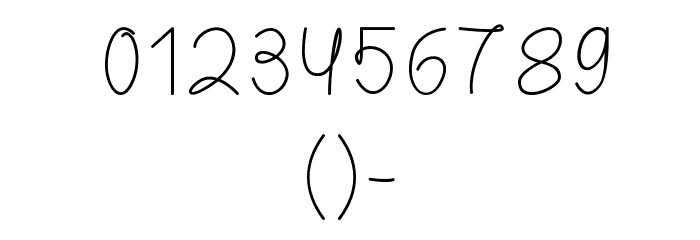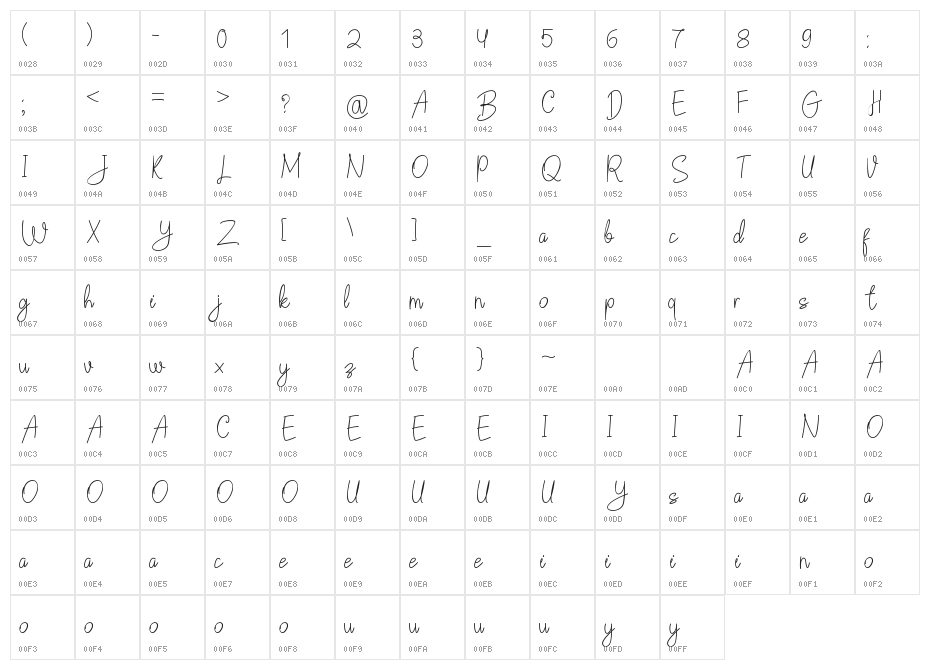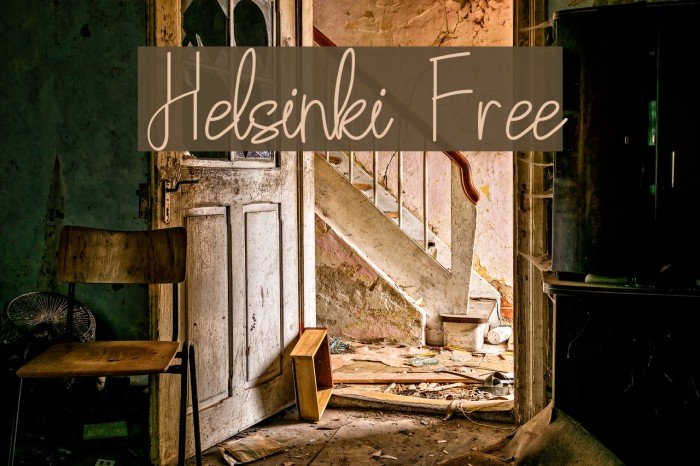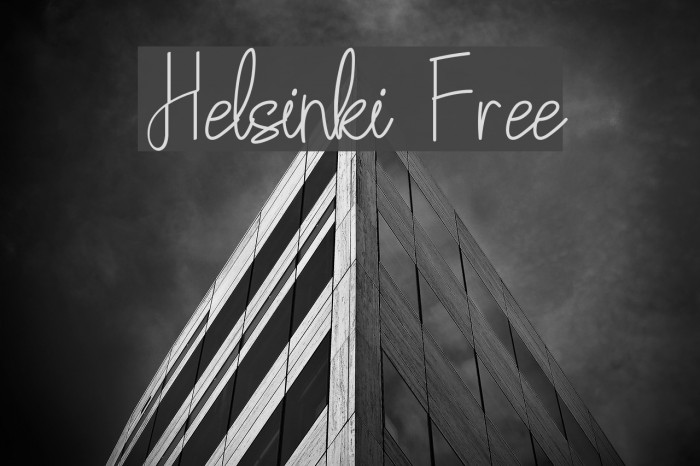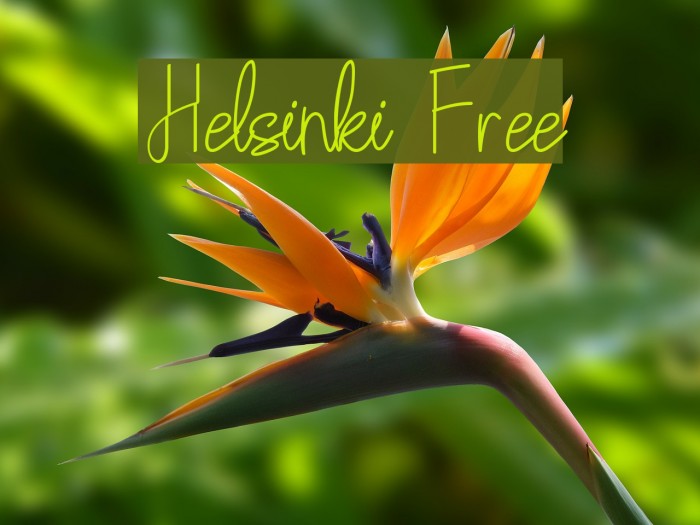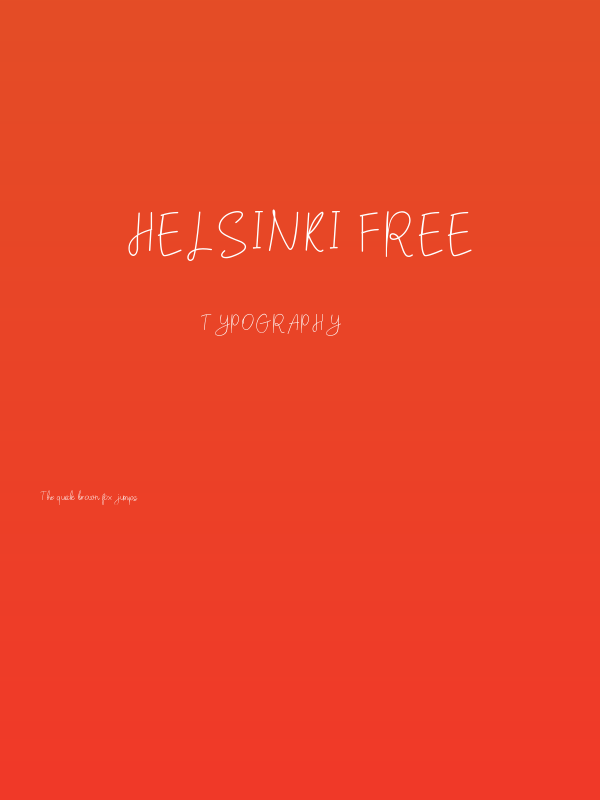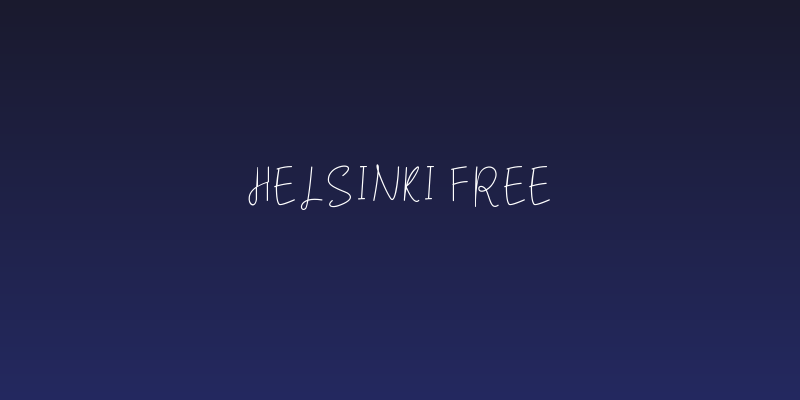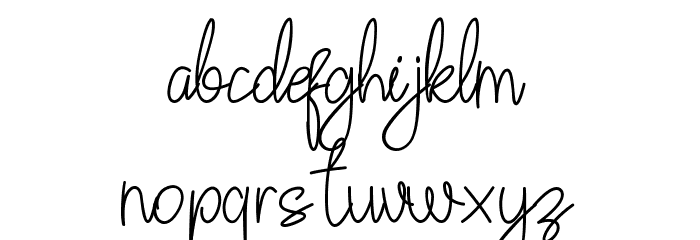
Helsinki Free Font
Helsinki Free Description
This font features a playful and elegant handwritten style, characterized by its flowing, cursive letterforms. The uppercase letters are tall and slender, with a slight slant that adds a dynamic feel. The lowercase letters maintain a consistent style, with smooth curves and loops that enhance its handwritten appearance. The numbers are clear and legible, matching the overall aesthetic of the alphabet. The font includes a set of special characters, maintaining the same whimsical and fluid design. Its overall look is both casual and sophisticated, making it suitable for a variety of creative projects.
| Proposed Projects | Ideal for wedding invitations, greeting cards, personal branding, and creative projects that require a personal touch. |